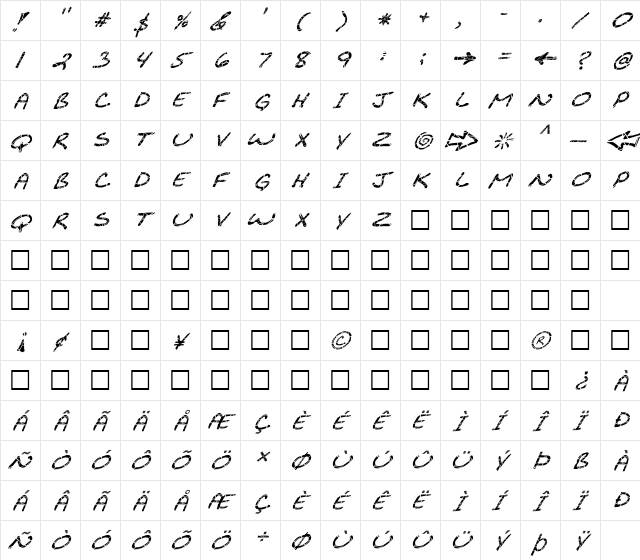
FZ JAZZY 29 CRACKED ITALIC Bold Font Preview
FZ JAZZY 29 CRACKED ITALIC Bold
Design Context for FZ JAZZY 29 CRACKED ITALIC Typeface
FZ JAZZY 29 CRACKED ITALIC is a composed and adaptable typeface that performs quietly and consistently across a wide range of design contexts. Its italic angle brings a sense of urgency and motion to the letterforms. The heavy weight commands attention and anchors typographic hierarchies.
Pro Tip: Use FZ JAZZY 29 CRACKED ITALIC for emphasis, pull quotes, and subheadings where its slanted energy can add rhythm to the layout.